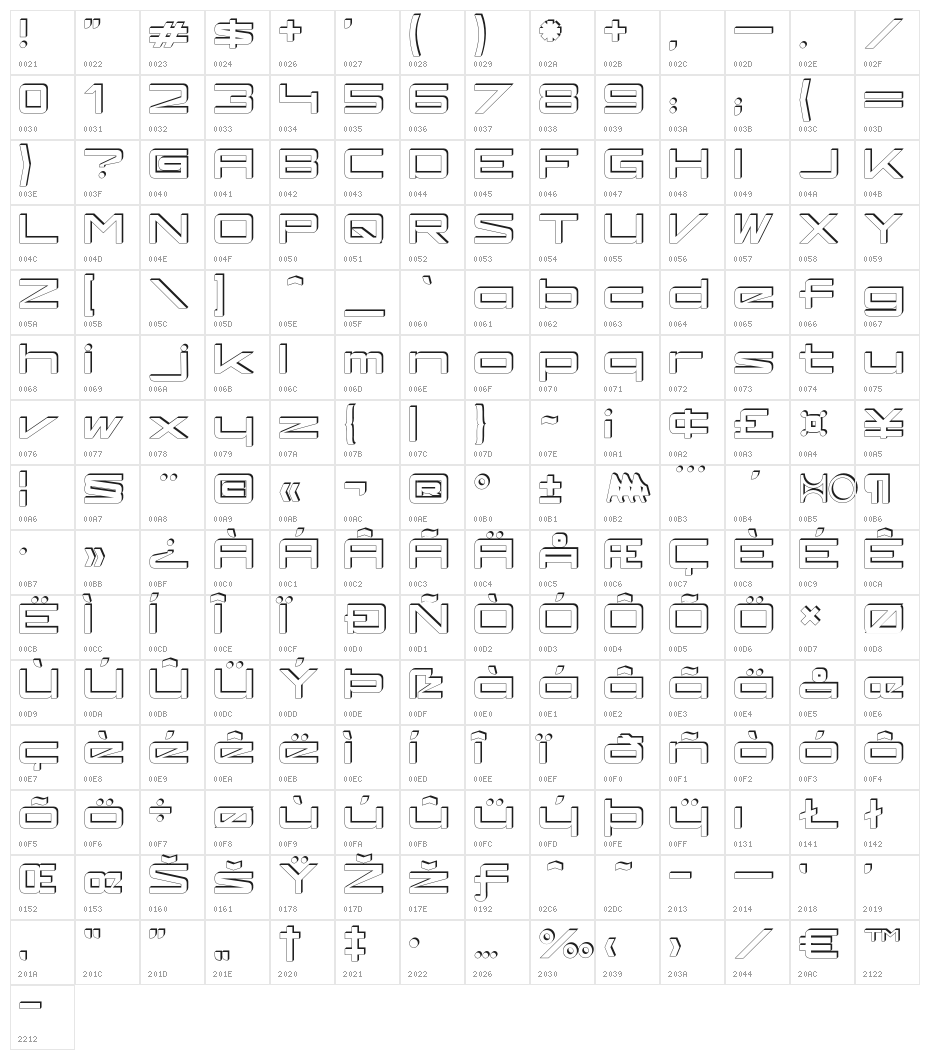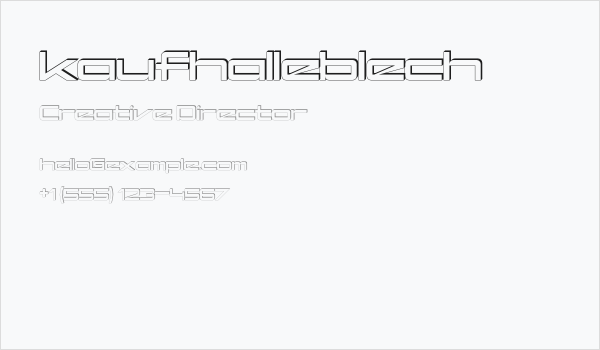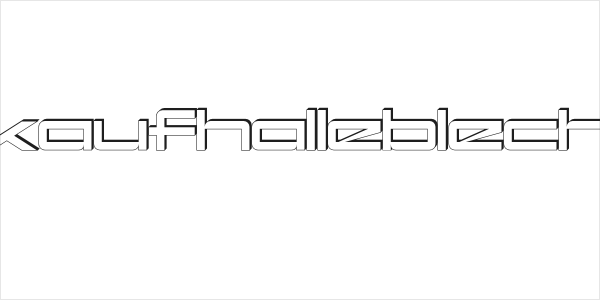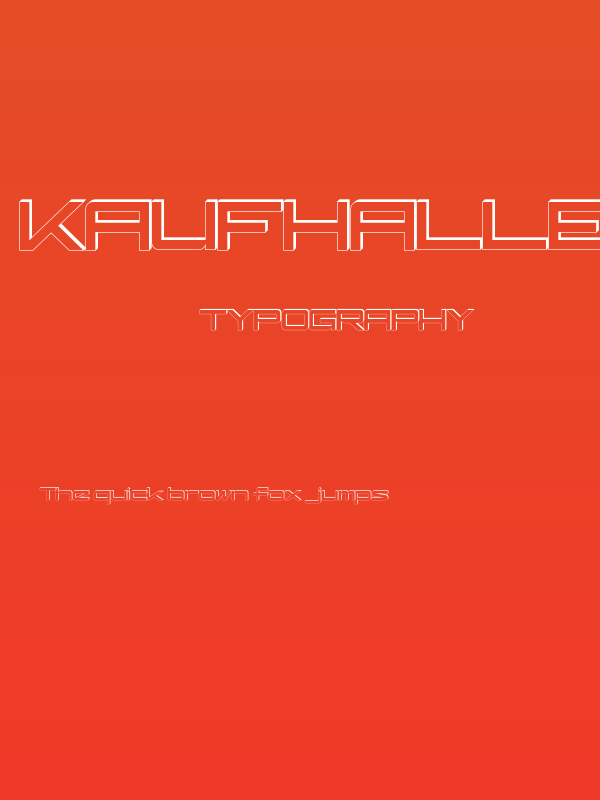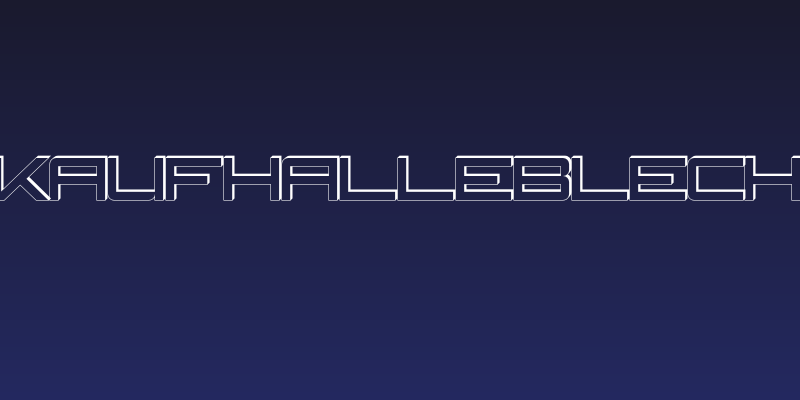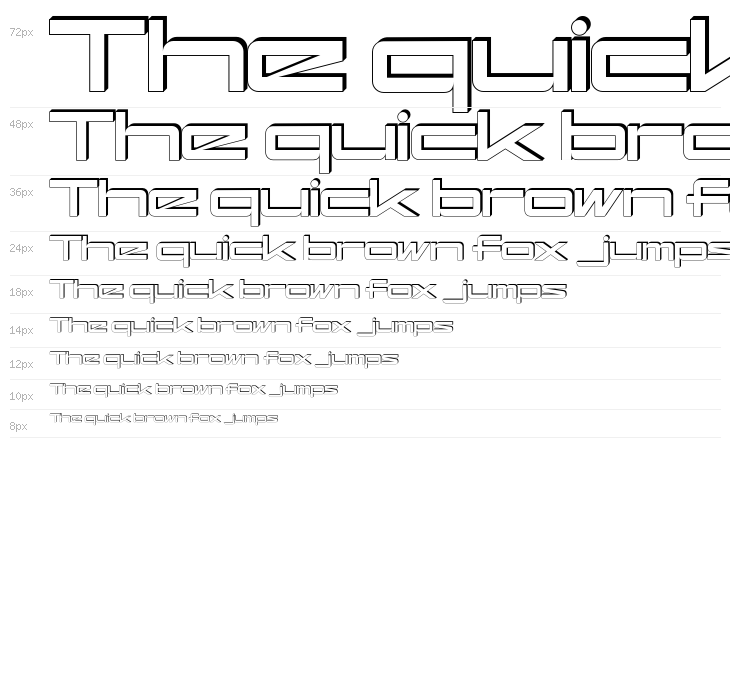
kaufhalleblech Font
kaufhalleblech Description
This font features a futuristic and geometric design with a hollow, outlined style. The characters are constructed with clean, straight lines and sharp angles, giving it a modern and technical appearance. The uppercase and lowercase letters maintain a consistent height, contributing to a uniform look. The numerals and special characters follow the same design principles, ensuring a cohesive aesthetic across all glyphs. The font's unique style makes it stand out, suitable for projects that require a contemporary and edgy feel.
| Proposed Projects | Ideal for technology branding, sci-fi posters, video game titles, and modern advertising. |